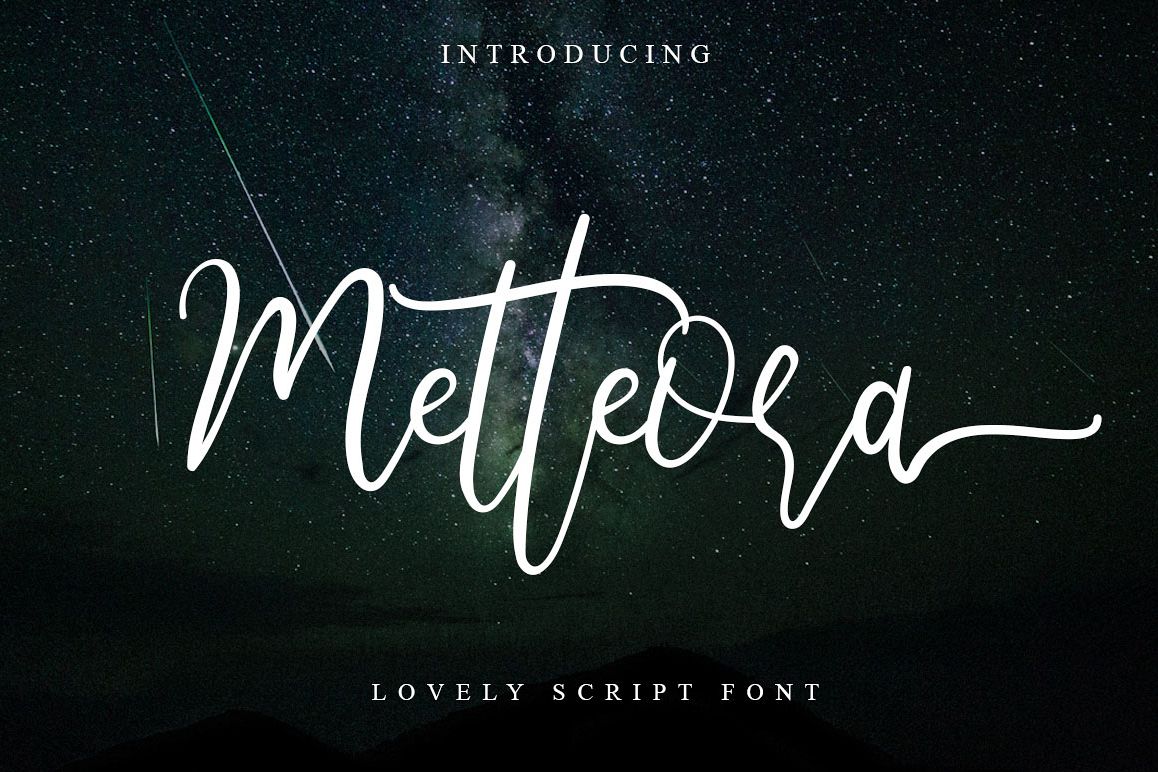
Metteora lovely script
"Metteora" is a hand lettered font style that is perfect
for greeting cards, branding, stationery design, social media,
packaging, magazine layouts, prints, logos and more!
This
unique font features complete lowercase alphabets and uppercase alphabets along with a few other ligatures and stylistic
alternates to create a truly handwritten look and feel.
"Metteora" has a variety of unique, coded features to create compelling, handmade outcomes.
Multilingual